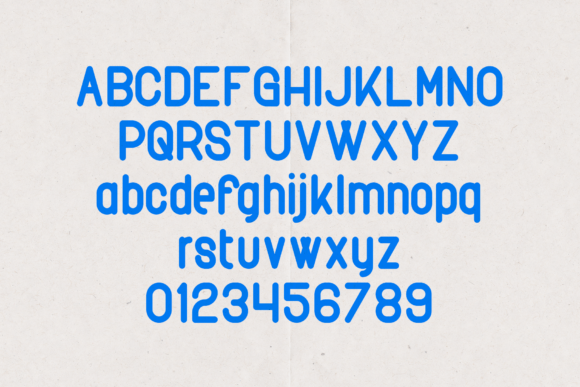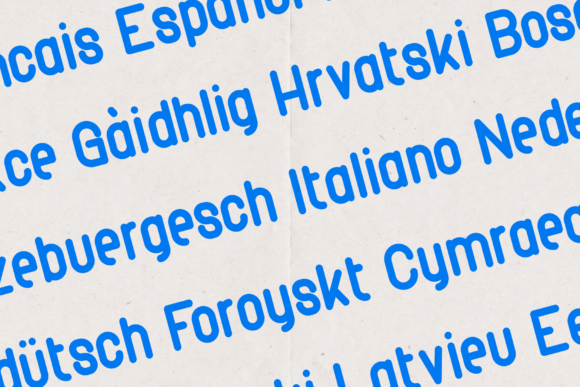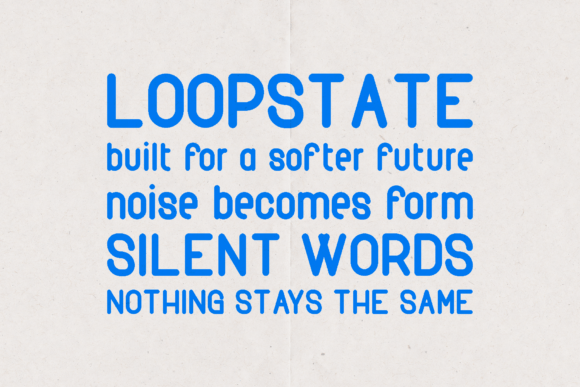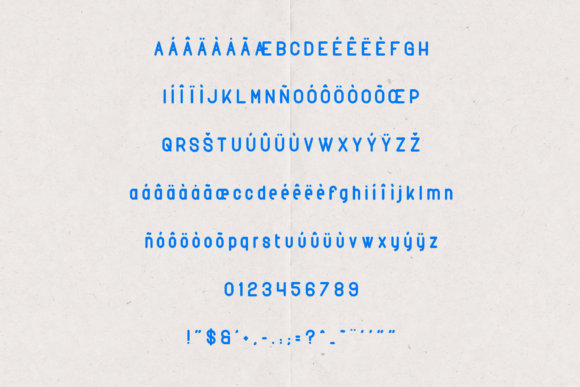
Introduction to Rimini Font
Rimini is a modern rounded sans serif font designed with clean geometry and smooth curves.
Its balanced structure and soft terminals create a friendly yet contemporary look, making it ideal for a wide range of design applications With its minimal aesthetic and strong readability, Rimini works perfectly for branding, digital interfaces, packaging, and editorial layouts.
Key Features of Rimini Font